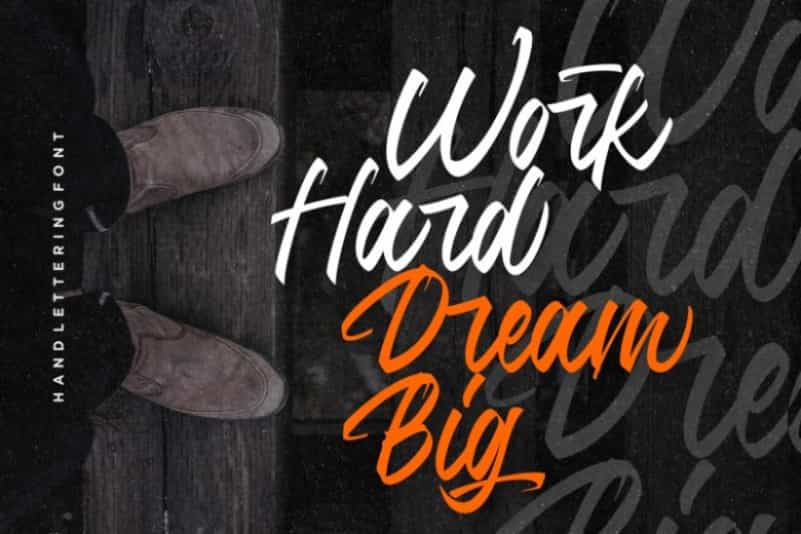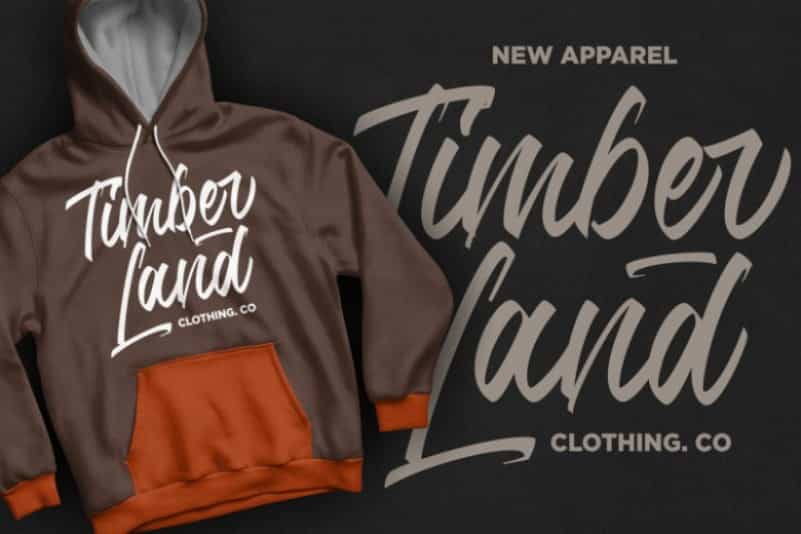
Jumps Steady is a handwritten script font with an urban edge perfect for your project that needs the handwritten appeal. Best for Branding projects logos, weddings, social media marketing, advertisements, packaging, labeling, photograph water marking, invitations, stationery use, anything that might need the personal touch of handwritten text.